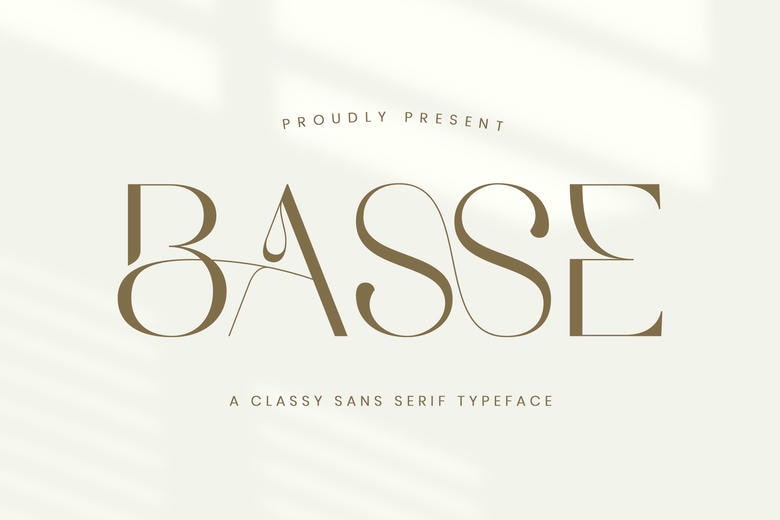
Basse Font
Basse Sans Font Typeface with references to the known minimalistic logo that may be used in the purposes of designing templates, brochures, videos, advertising branding, logos, invitation design, layout design, sophisticated crafting, beauty design and others.
Basse Sans Serif Font